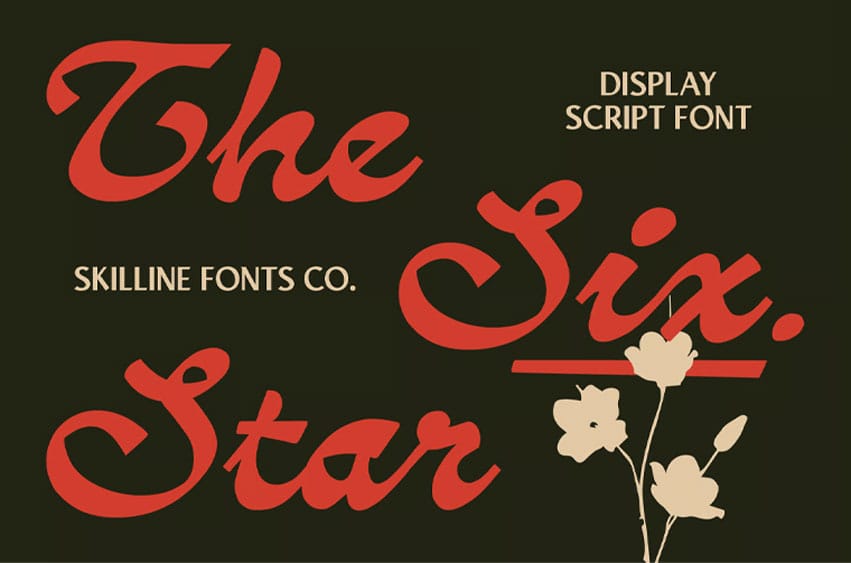
Six Star Font is a vintage-inspired display script typeface featuring smooth flowing strokes, generous curves, and expressive letterforms. Influenced by classic sign-painting traditions and retro handwritten styles, the design combines elegant movement with bold construction, creating a distinctive balance between softness and presence.
Carefully crafted with fluid connections, rounded terminals, and refined stroke transitions, the typeface delivers a warm and characterful appearance. Its dynamic rhythm, decorative swashes, and nostalgic detailing contribute to a polished script personality with a timeless visual appeal.
- Vintage Display Script
- Smooth Flowing Edges
- Elegant Nostalgic Character